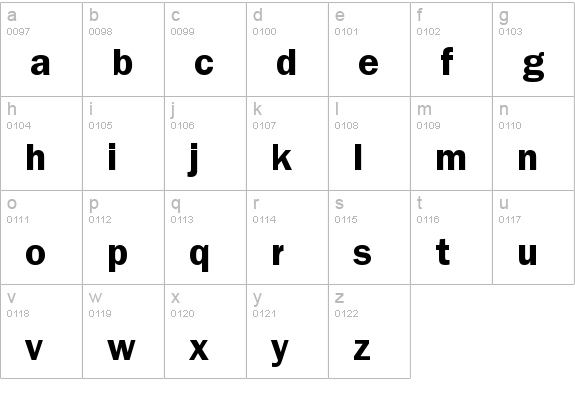
Franklin Gothic Demi is a sub-bold, structured variant in the Franklin typeface family \xE2\x80\x94 well suited to sub-headlines and emphasised passages.
Franklin Gothic Demi is a bold and versatile font that exudes strength and modernity. Its distinct presence makes it perfect for headlines, titles, and logos, giving any design a bold and impactful look. The clean lines and sharp edges of this font convey a sense of professionalism and authority, making it ideal for corporate branding and editorial design. Best of all, Franklin Gothic Demi is available for free download at FontsMarket.com. This means that you can easily access this high-quality font without any cost, allowing you to enhance your design projects with a premium typeface without breaking the bank. Download Franklin Gothic Demi today and add a touch of sophistication and strength to your designs.